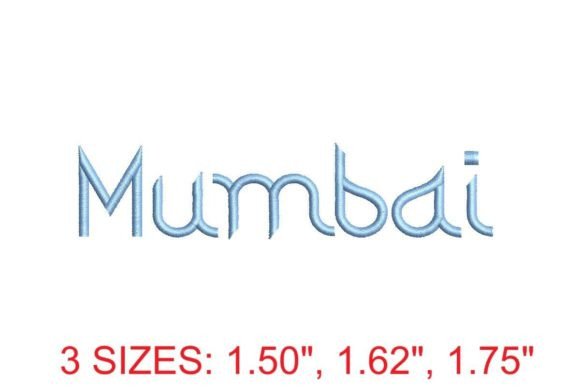
Mumbai Embroidery Font
Mumbai Embroidery Font: Elegant, PES-Compatible Script for Professional Textile Personalisation
Looking for a premium machine embroidery font that combines timeless sophistication with seamless technical compatibility? The Mumbai Embroidery Font is a standout choice for UK-based crafters, small-batch textile designers, and embroidery professionals seeking refined, hand-crafted charm — without the hours of digitising.
This exquisitely crafted script font delivers authentic embroidery aesthetics right out of the box. Designed specifically for precision stitching, it’s fully compatible with PES files — making it ideal for Brother, Baby Lock, and other popular embroidery machines widely used across the UK hobbyist and boutique markets.
Whether you’re stitching delicate monograms on heirloom linens, personalising children’s nursery textiles, or adding bespoke lettering to boutique apparel, Mumbai brings effortless elegance. Its flowing, balanced script evokes artisanal embroidery while maintaining exceptional stitch stability — even at smaller sizes.
- 156 meticulously digitised characters — including uppercase, lowercase, numerals, and essential punctuation — all optimised for clean, consistent stitching
- UK-ready & practical — designed for reliable performance on domestic and semi-professional machines, with balanced density to prevent puckering on cotton, linen, and stable blends
- Endless creative scope — perfect for wedding stationery accents, boutique gift tags, custom towels, baby keepsakes, and small-run fashion labels